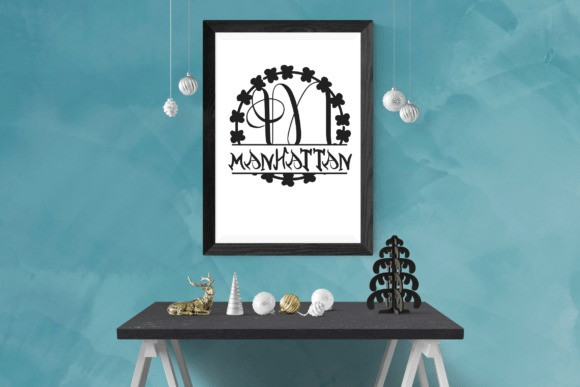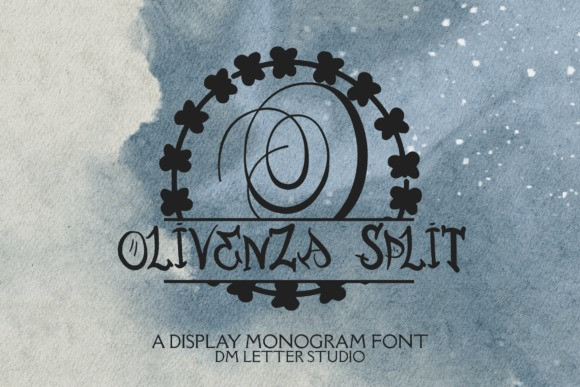
Olivenza Split Monogram Font
Olivenza Split Monogram Font turns simple initials into refined botanical emblems with a clean center split for names, dates, or short words. The strokes are smooth and balanced, so letters stay clear at any size. Because counters remain open and curves stay clean, tiny tags print crisp while large signage looks polished and gift-ready. Use it for wedding suites, boutique logos, keepsake gifts, wax seals, stationery, and luxury packaging. As a result, your designs feel personalized and premium in minutes.
Fast layouts with Olivenza Split
Start with a bold split initial, then place a name, family title, or date across the center bar. After that, add supporting text in a soft serif or a neat humanist sans. Because Olivenza Split holds shape at small sizes, cards, cartons, acrylic signs, and tags print cleanly and cut smoothly. In addition, the proportions pair beautifully with wreath frames, oval borders, thin dividers, and subtle foliage accents, so full sets come together in minutes. Finally, save palette pairs like olive & ivory, champagne & charcoal, navy & pearl, or blush & cocoa to repeat across your product line.